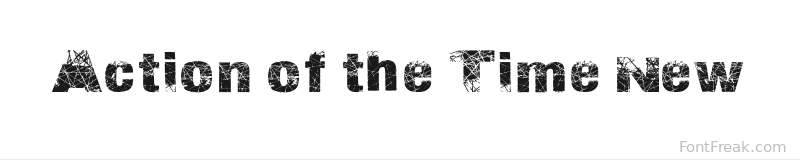
Action of the Time New
About Action of the Time New
Action of the Time New, designed by Galdino Otten Fonts, is a captivating display font that seamlessly blends a sense of urgency and creativity. This unique typeface features a bold, decorative style that stands out with its dynamic and slightly distressed appearance. The strokes exhibit a medium weight with varying contrast, giving it an energetic feel while remaining highly legible. The spacing is thoughtfully crafted, ensuring readability even at larger sizes, while the decorative elements add an artistic flair that can elevate any design project.
This font is particularly well-suited for a variety of creative applications. Its striking characteristics make it an excellent choice for movie posters, where it can evoke excitement and draw in viewers. Additionally, Action of the Time New works wonderfully for event flyers, as its boldness captures attention effectively. Graphic designers may also find this font ideal for branding projects, especially for businesses looking to convey a modern and energetic vibe. Furthermore, small business owners can utilize it in promotional materials, such as banners and signage, to create an impactful visual appeal.
In conclusion, the Action of the Time New font stands out due to its unique blend of boldness and creativity. It offers a fresh take on traditional display typography, making it a valuable addition to any designer's toolkit. Whether you’re crafting eye-catching advertisements or designing memorable branding elements, this font is sure to make a lasting impression.